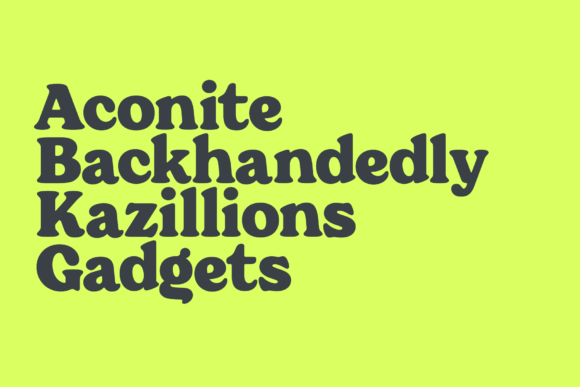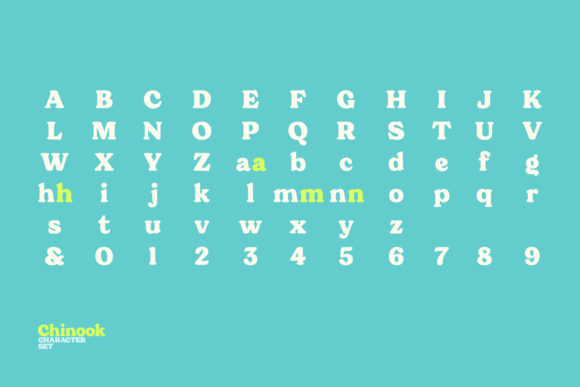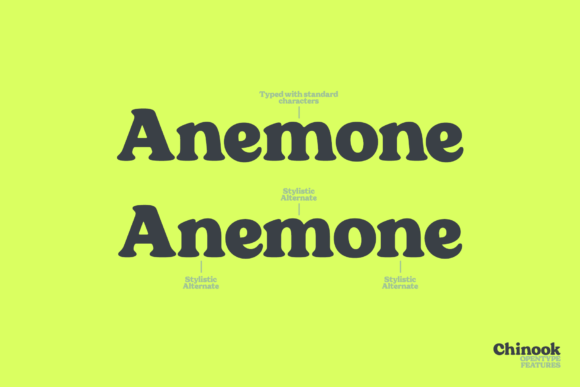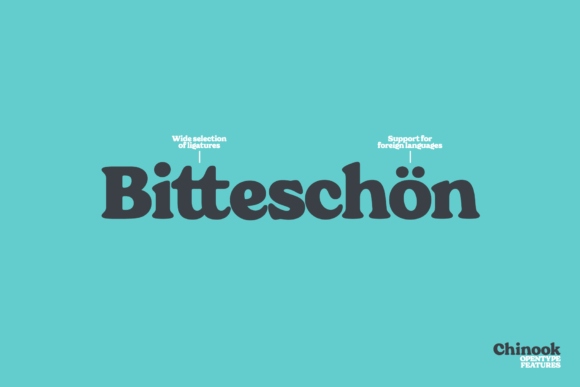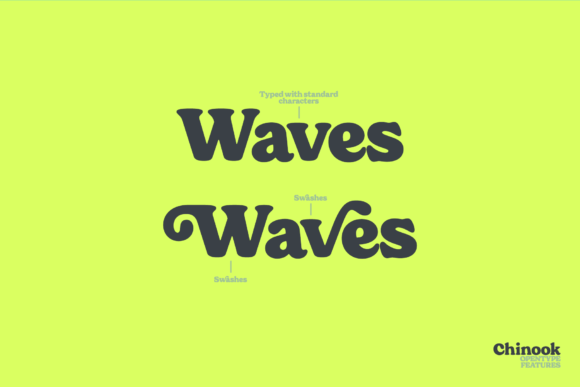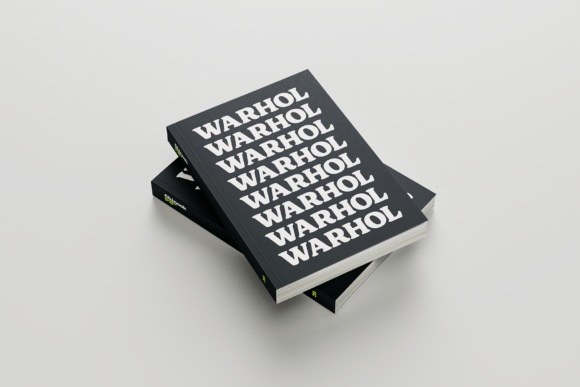
The Nostalgic Charm of Chinook Font: A Designer’s Delight
I’ll never forget the design project that led me to discover the Chinook font. I was working on a retro-themed branding campaign for a client who wanted to evoke the classic look of Italian movies from the 70s and 80s. As I scoured the internet for the perfect font, I stumbled upon Chinook, and it was love at first sight! 💫
The chunky, serif font had a certain nostalgic charm that perfectly captured the essence of Italian cinema’s golden era. But what struck me most was its versatility – Chinook’s sturdy design made it suitable for both headlines and body text, with a balanced and soft appearance that worked beautifully in various contexts.
A Closer Look: What I Love About Chinook Font
So, what makes Chinook font so special? Here are a few things that I absolutely adore:
- ✨ Retro flair with a modern twist: Chinook’s vintage look is undeniable, but its rounded serifs and fluffy overall appearance give it a refreshingly modern feel.
- ✅ Exceptional legibility: The font’s chunky design ensures that it’s easily readable, even at smaller sizes.
- ✅ High-impact design capabilities: Chinook’s heavy appearance makes it perfect for headlines, titling, branding, and logotype.
Honest Review: A Few Quirks to Consider
While Chinook font is an excellent choice for many design projects, there are a few quirks to keep in mind:
- 🤔 Limited suitability for body text: While Chinook is great for headlines and titles, it may not be the best choice for lengthy body text due to its chunky design.
- ⚠️ Potential for overuse: Chinook’s distinctive look can be overwhelming if overused; be mindful of balancing it with other design elements.
If you love Chinook font, you might also enjoy these similar fonts:
- Cooper Black: The classic inspiration behind Chinook, Cooper Black is a timeless serif font with a similar chunky feel.
- Playfair Display: This elegant serif font shares Chinook’s luxurious feel, but with a more refined and sophisticated appearance.
- Rockwell: Another sturdy serif font, Rockwell has a similar industrial feel to Chinook, but with a more geometric approach.
- Bebas Neue: For a more modern take on the chunky serif font, Bebas Neue offers a bold and edgy appearance.
The Designer Inspiration Behind Chinook Font
Chinook font was designed as an homage to the iconic titling of Italian movies from the 70s and 80s. The designer’s inspiration was drawn from the era’s distinctive style, which often featured bold, chunky fonts with a retro flair.
| Font Name | Chinook Font |
| Author | unio.creativesolutions |
| What is Chinook font inspired by? | Chinook font is inspired by the iconic titling of Italian movies from the 70s and 80s. |
| Is Chinook font suitable for body text? | While Chinook font can be used for body text, it’s primarily designed for headlines and titles due to its chunky appearance. |
| Does Chinook font support OpenType features? | Yes, Chinook font supports OpenType features, including stylistic alternates and glyphs. |
With its unique blend of retro flair and modern sophistication, Chinook font is sure to become a staple in your design library. Whether you’re working on a branding project, creating a poster, or simply experimenting with typography, Chinook font is an excellent choice.